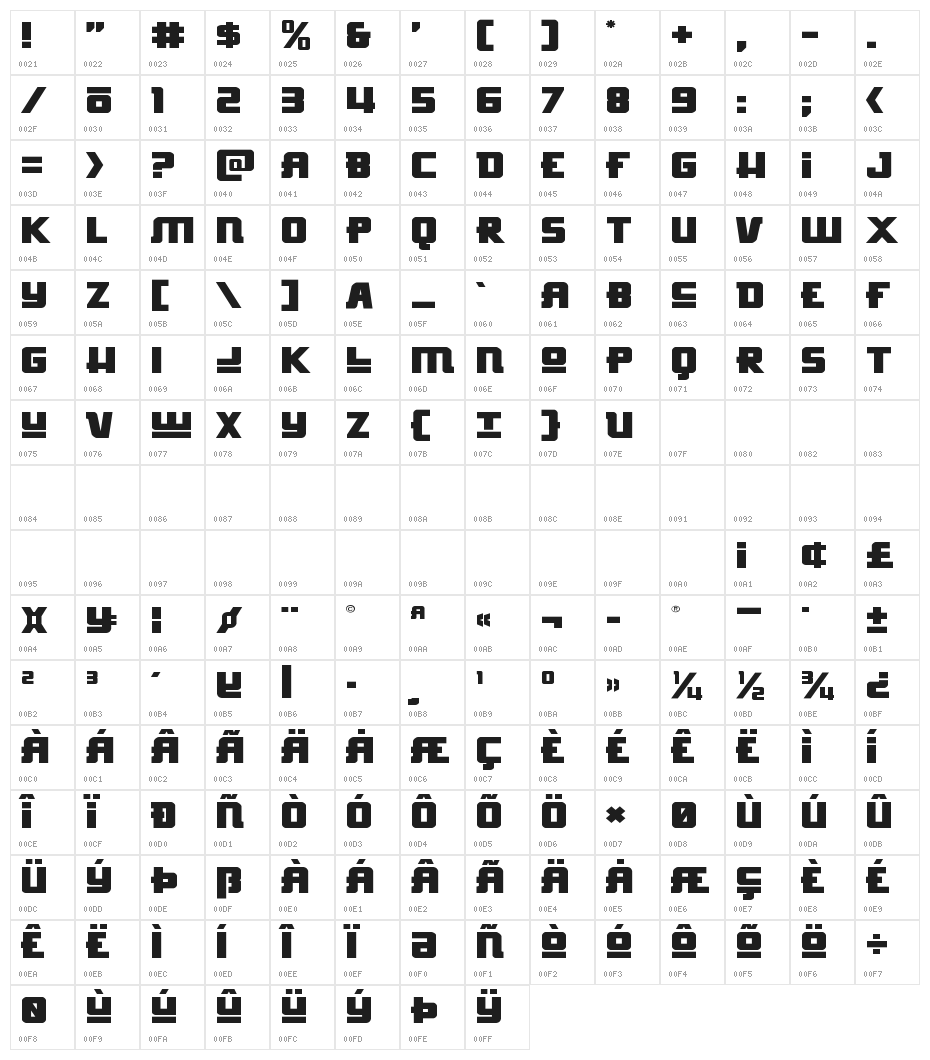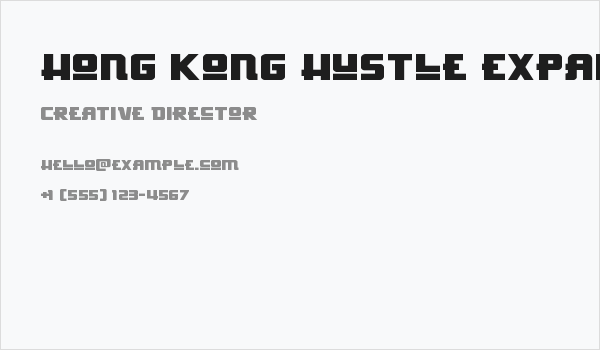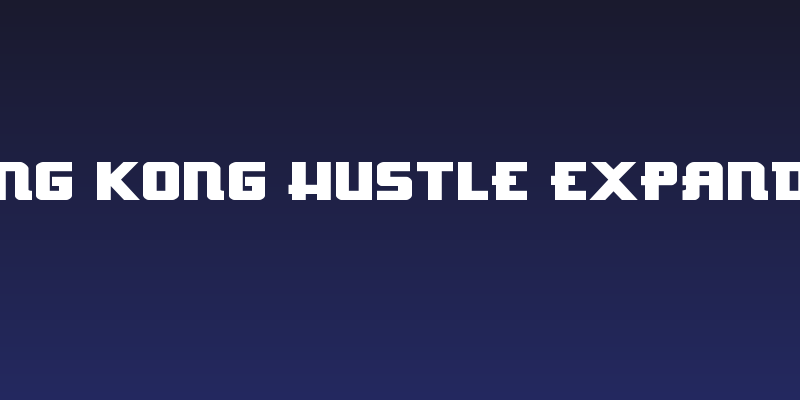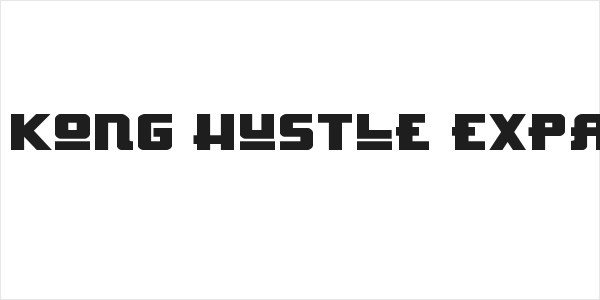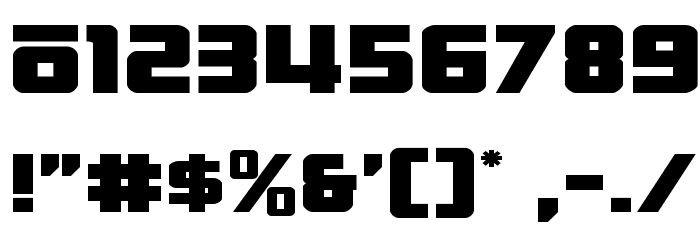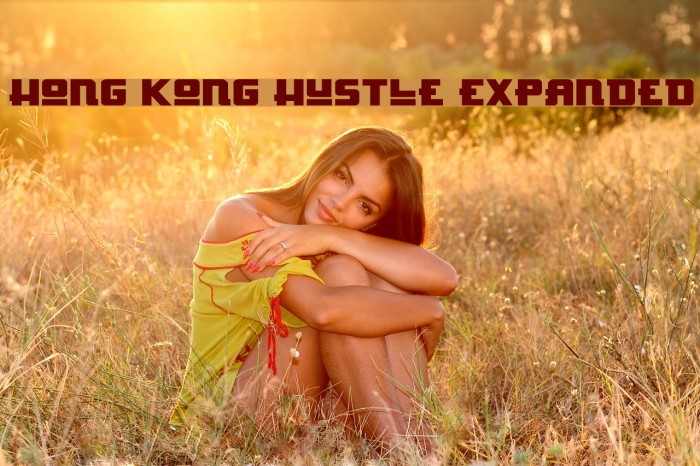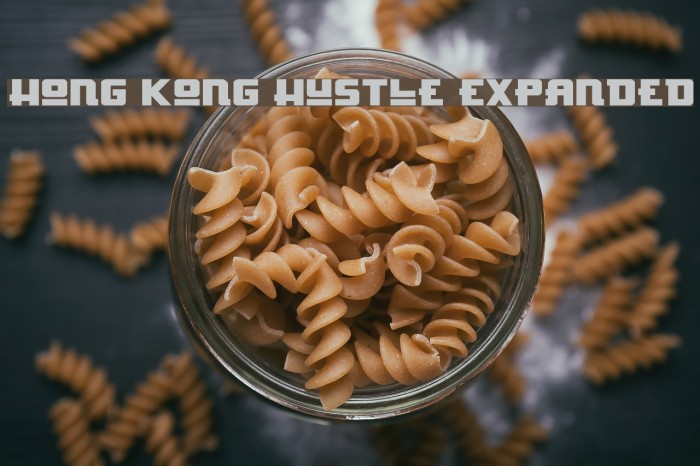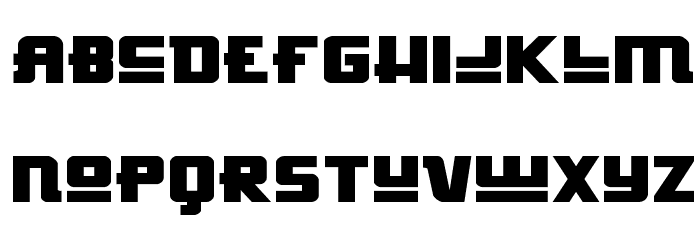
Hong Kong Hustle Expanded Font
Hong Kong Hustle Expanded Description
This font features a bold, geometric design with a distinctly modern and urban aesthetic. The characters are constructed with thick, block-like shapes, giving them a strong and impactful presence. The angular cuts and sharp edges contribute to a futuristic feel, while the consistent stroke width across all characters ensures a cohesive look. The uppercase and lowercase letters maintain a uniform height, enhancing the boldness and readability. The numerals and special characters follow the same design principles, making them easily recognizable and visually striking. This font is ideal for projects that require a contemporary and assertive style.
| Proposed Projects | Ideal for branding, posters, headlines, and digital media that require a strong, modern look. |